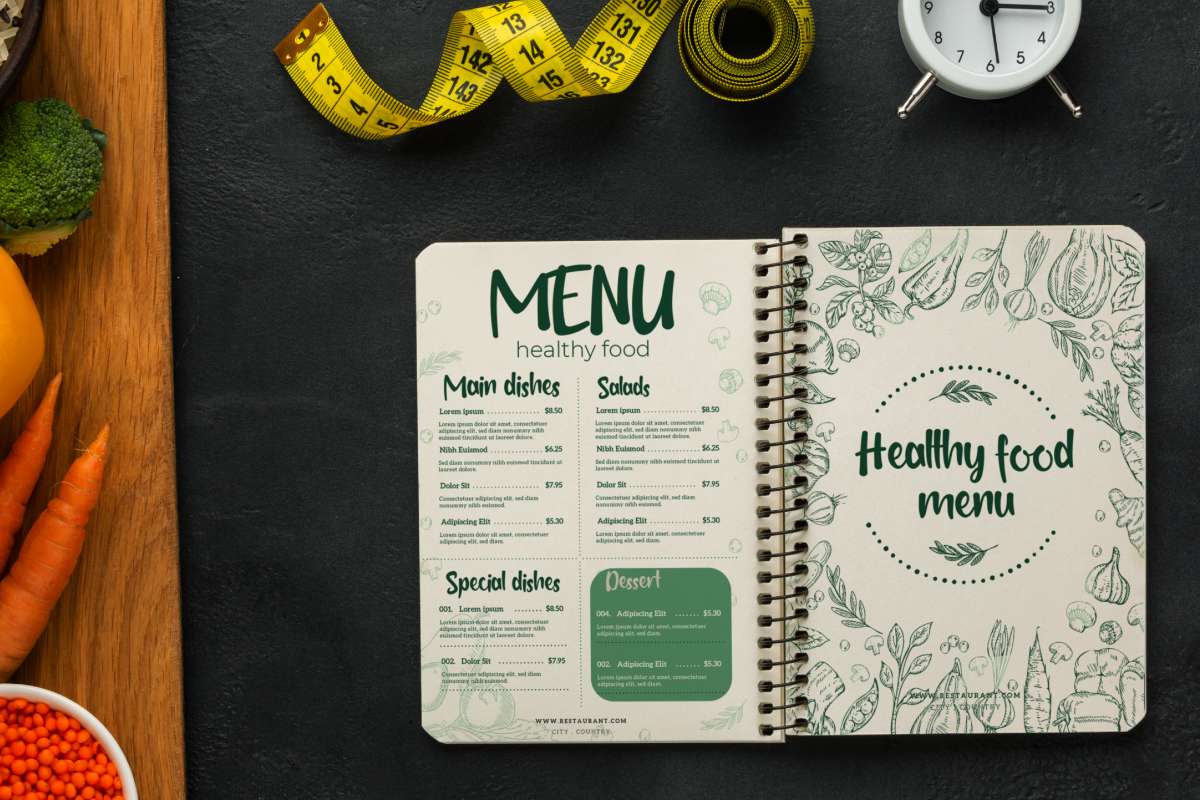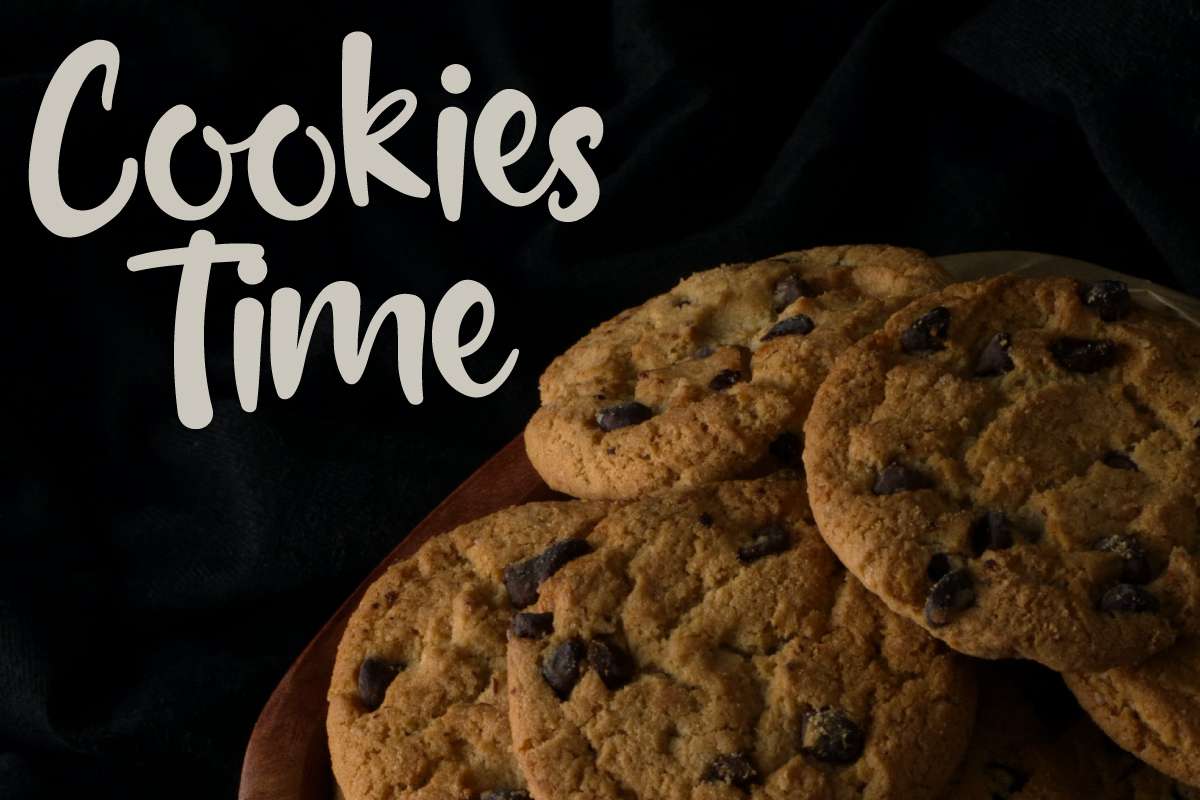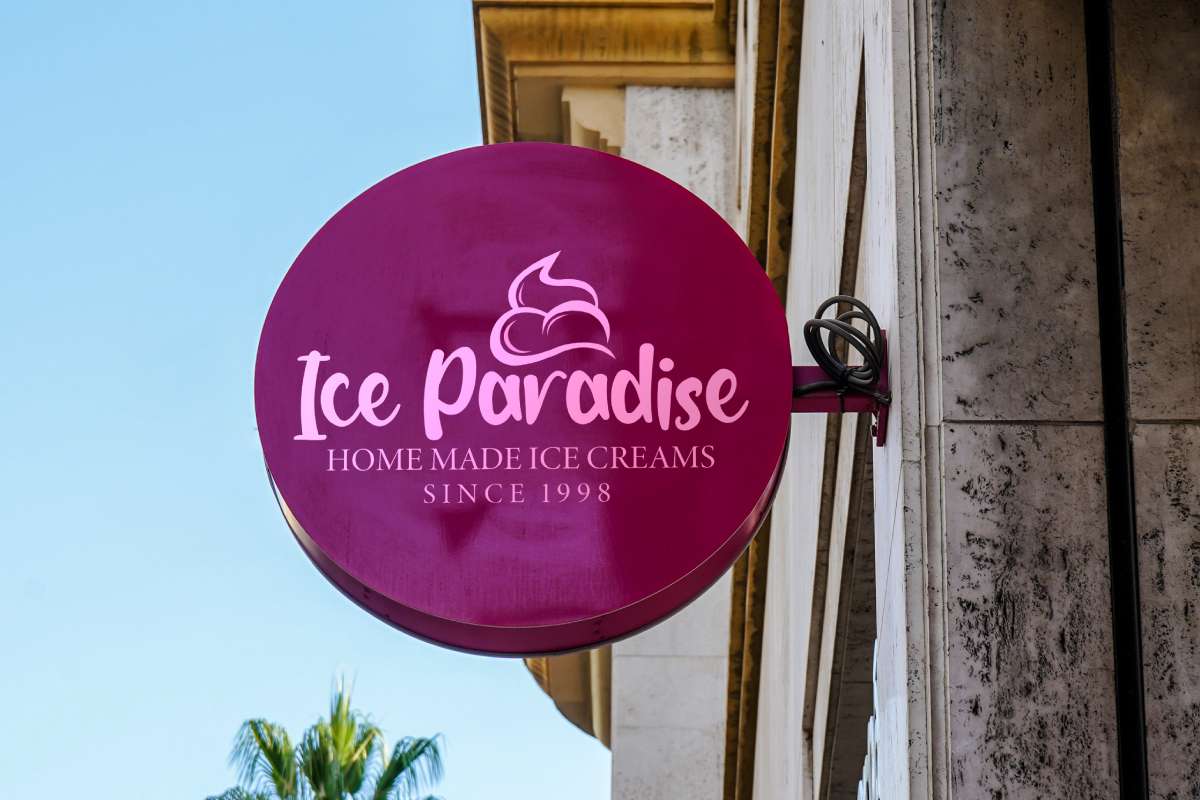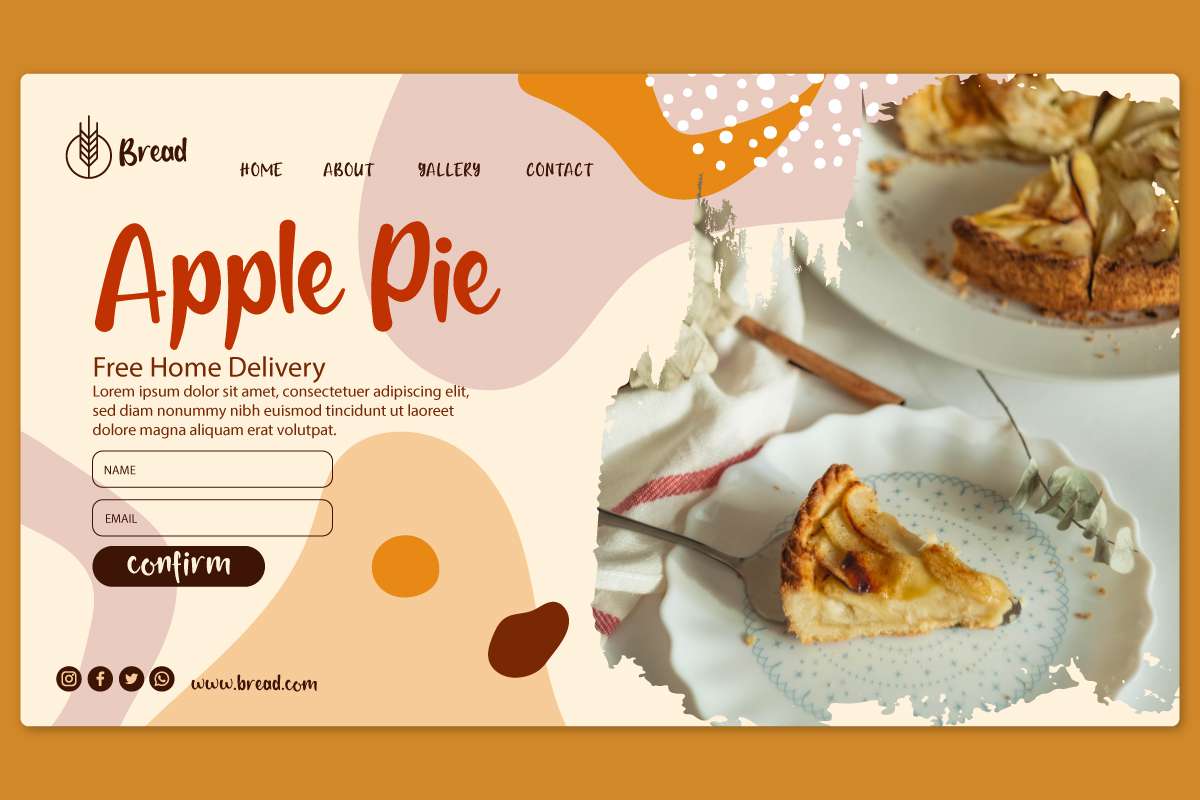
Favorite Pie Font
Favorite Pie Script Font
It’s a handwriting font with cute bold brush style. This font is crafted carefully in every its single line, created to look as close to a handwritten result so that it can create the perfect combination on each glyph. When we make this font, we really want to make a font that has a cute semi-cartoon style. This awesome handwritten is for anyone who are needing of fun and pop designs.
Favorite Pie Font includes a full set of Upper and Lowercase Basic Characters, Numbers and Punctuation to create the perfect natural handwritten look to perfect your extraordinary projects. This font also has ligature characters that are made to flow with each letter